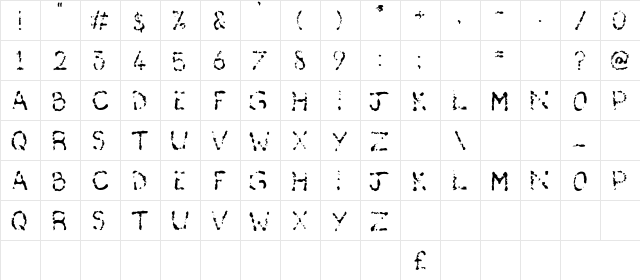
Deaf As A Post Regular
| Foundry | spadefonts |
| Designer | spade |
Design Context for Deaf As A Post Typeface
Deaf As A Post is a composed and adaptable typeface that performs quietly and consistently across a wide range of design contexts.